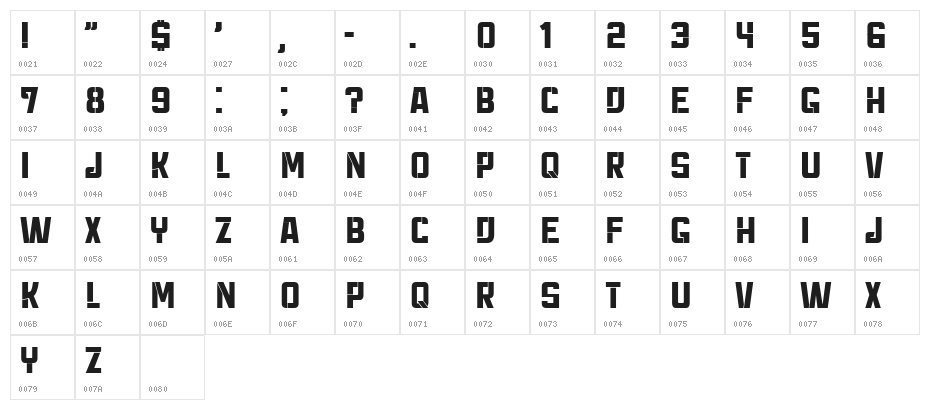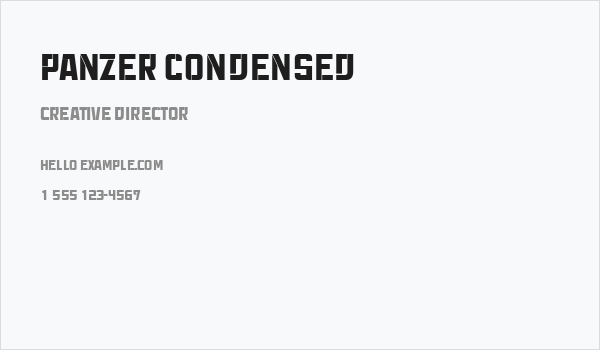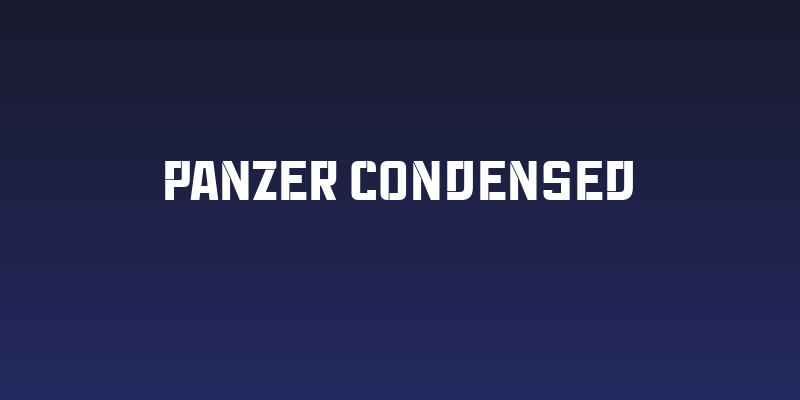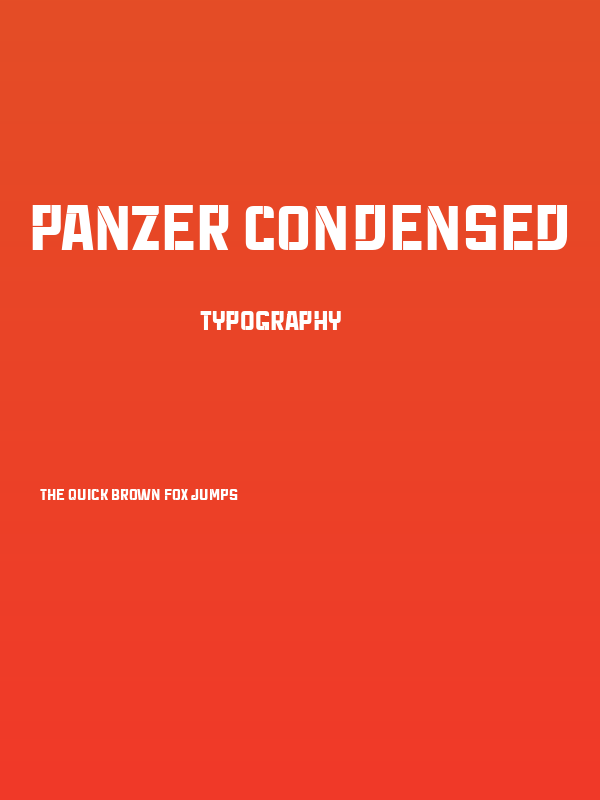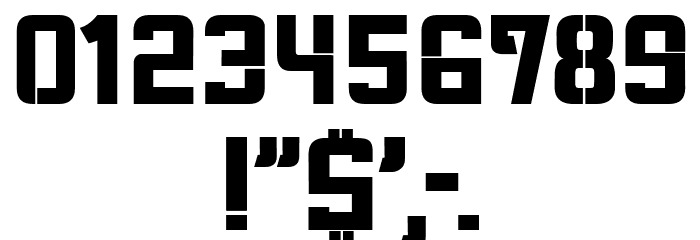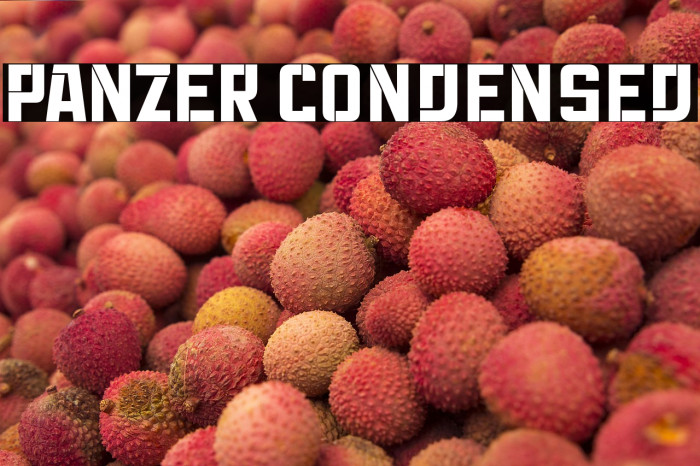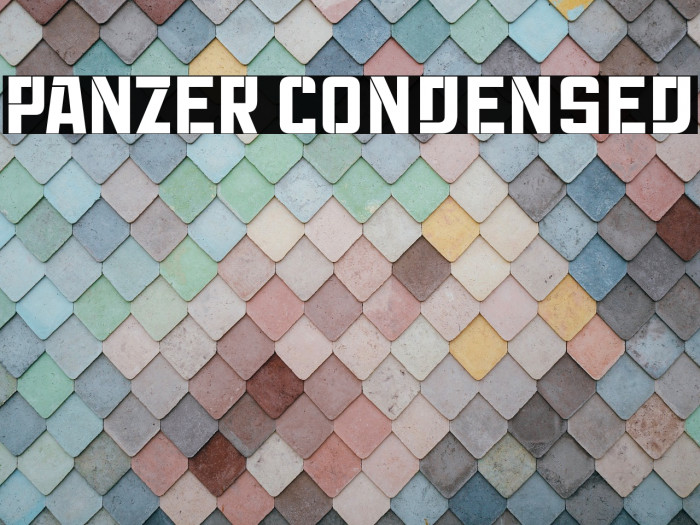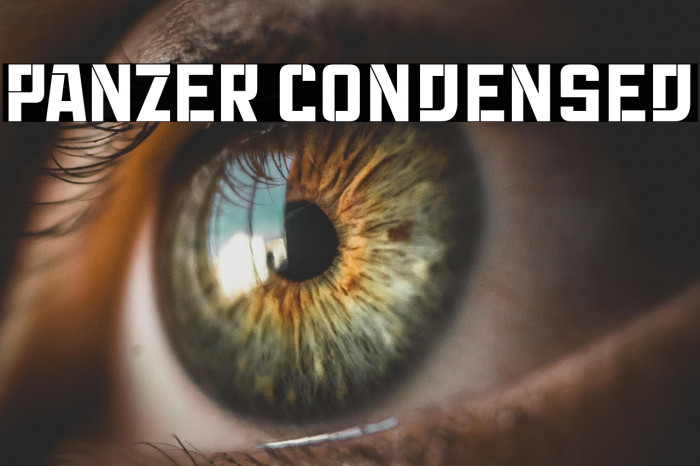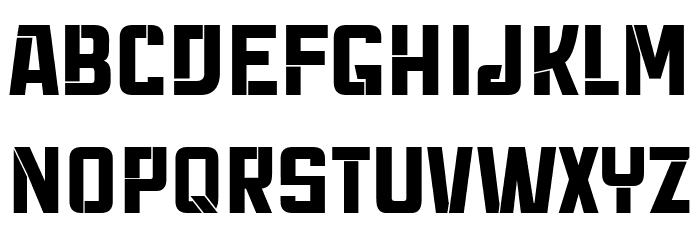
Panzer Condensed Font
Panzer Condensed Description
This font features a bold and condensed style with a strong geometric structure. The uppercase letters are characterized by sharp angles and straight lines, giving it a modern and industrial feel. The lowercase letters maintain the same boldness and geometric precision, ensuring consistency across all characters. The numbers are equally bold and follow the same condensed style, making them highly legible. Special characters are designed to match the overall aesthetic, with a focus on maintaining the font's robust and impactful appearance. This font is ideal for projects that require a strong visual presence.
| Proposed Projects | Ideal for branding, posters, headlines, and any design requiring a strong, impactful typeface. |